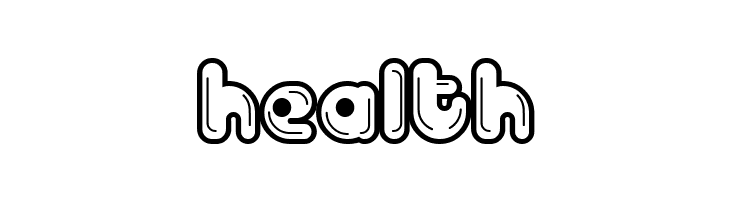
Lounge Bait Font
Font by www.fontalicious.com
A playful, retro-inspired font with tall, narrow characters and whimsical curves.
Zentenar Fraktur Bold Font
Font by Dieter Steffmann
A bold, ornate Blackletter font with intricate details and a historical aesthetic.
Luxerie Font
A modern sans-serif font with clean lines and a minimalist style.
LORENZA Font
KULDIPA2 Italic Font
An elegant serif font with a classic italic style and high contrast strokes.
KAPOW Font
Font by Dicky Syafaat
A bold, dynamic font with a playful, comic book style.
Strarat Elegante Font Regular Font
Font by 177Studio
An elegant and decorative font with high contrast and intricate letterforms.
Rollout Bold Font
Font by Ben Weiner - www.readingtype.org
A bold, modern typeface with clean lines and strong visual impact.
TSalvacion Font
Måns Grebäck
A bold, fragmented font with a modern, geometric style.
Eight Track program 3 Font
Font by www.fontalicious.com
A bold, outlined font with decorative elements and a playful style.
Rollout Semibold Font
Font by Ben Weiner - www.readingtype.org
Holaholo Font
Font by Mohammad Azmil Bahar
A playful, rounded font with smooth curves and a friendly vibe.
Axial cut Bold Font
Font by
defharo
A bold, geometric font with sharp angles and a modern, industrial feel.
JustOldFashion-Condensed Font
Font by Manfred Klein - manfred-klein.ina-mar.com
A classic serif font with a condensed width and medium contrast, offering elegance and readability.
McKloud Storm Font
Font by Apostrophic Lab
A playful, cloud-like font with bold, rounded characters and three-dimensional shading.
HippoCritic Font
A bold, whimsical font with playful spiral elements and irregular shapes.
DINOTOONS Font
Font by Fachran Heit
A bold, cartoonish font with playful, exaggerated curves.
Rune Font
A modern font inspired by ancient runic symbols with sharp, angular lines.
VTC-GarageSale Font
A bold, playful font with a hand-drawn, cartoonish style.
whoody Font